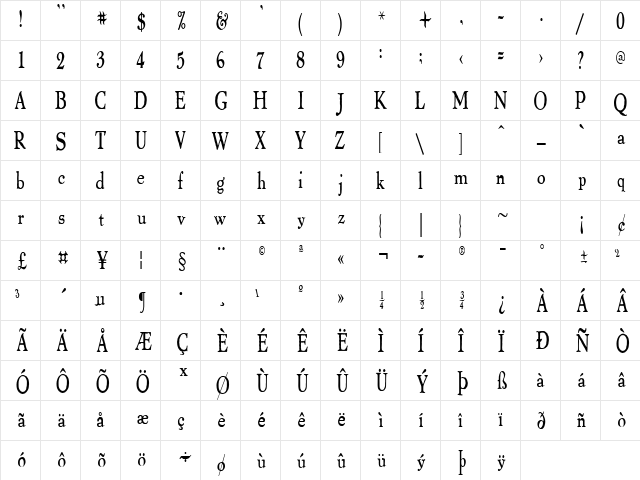
ThomasPaineCondensed Regular
Design Context for ThomasPaineCondensed Typeface
ThomasPaineCondensed is a composed and adaptable typeface that performs quietly and consistently across a wide range of design contexts. The condensed width makes it efficient for tight spaces without sacrificing legibility.